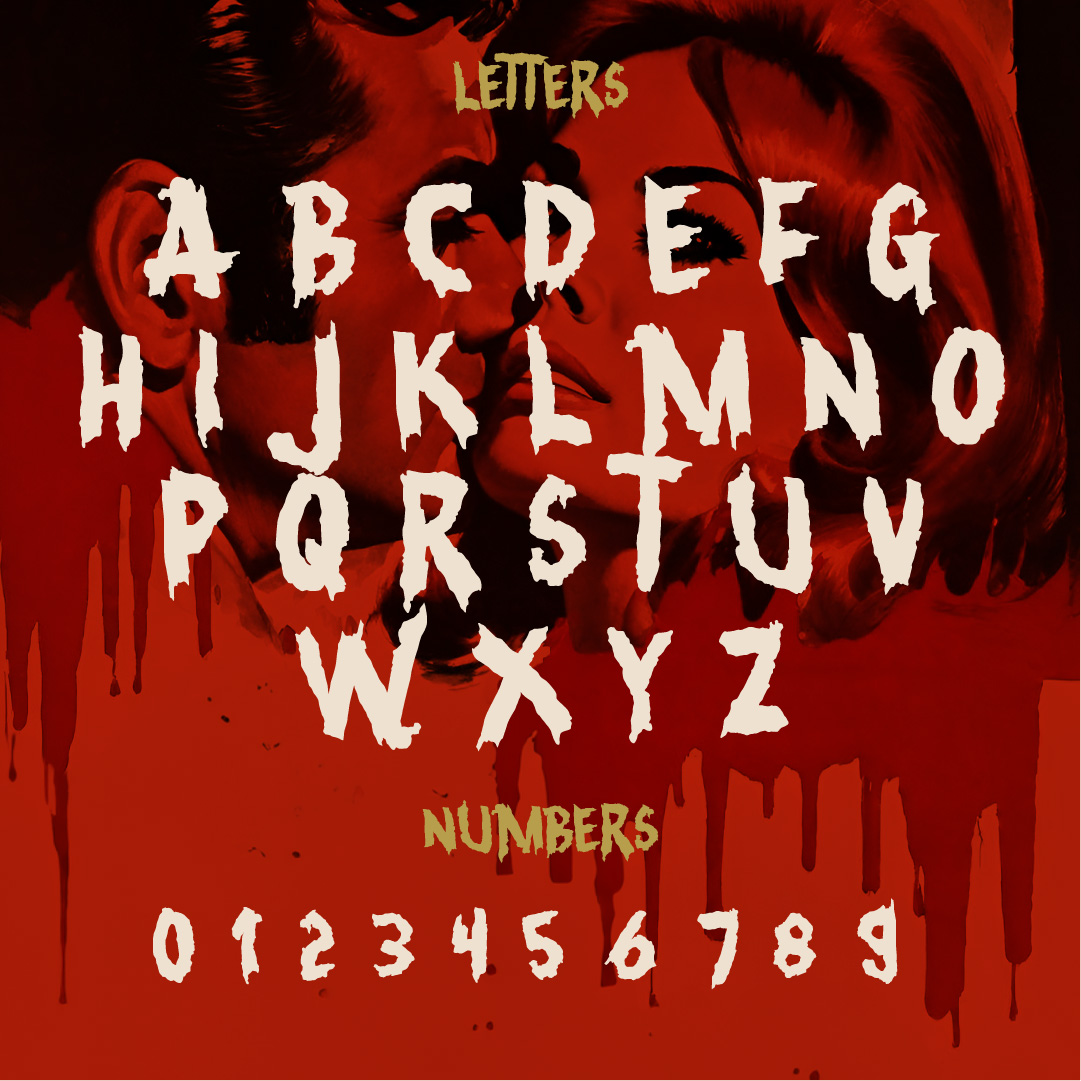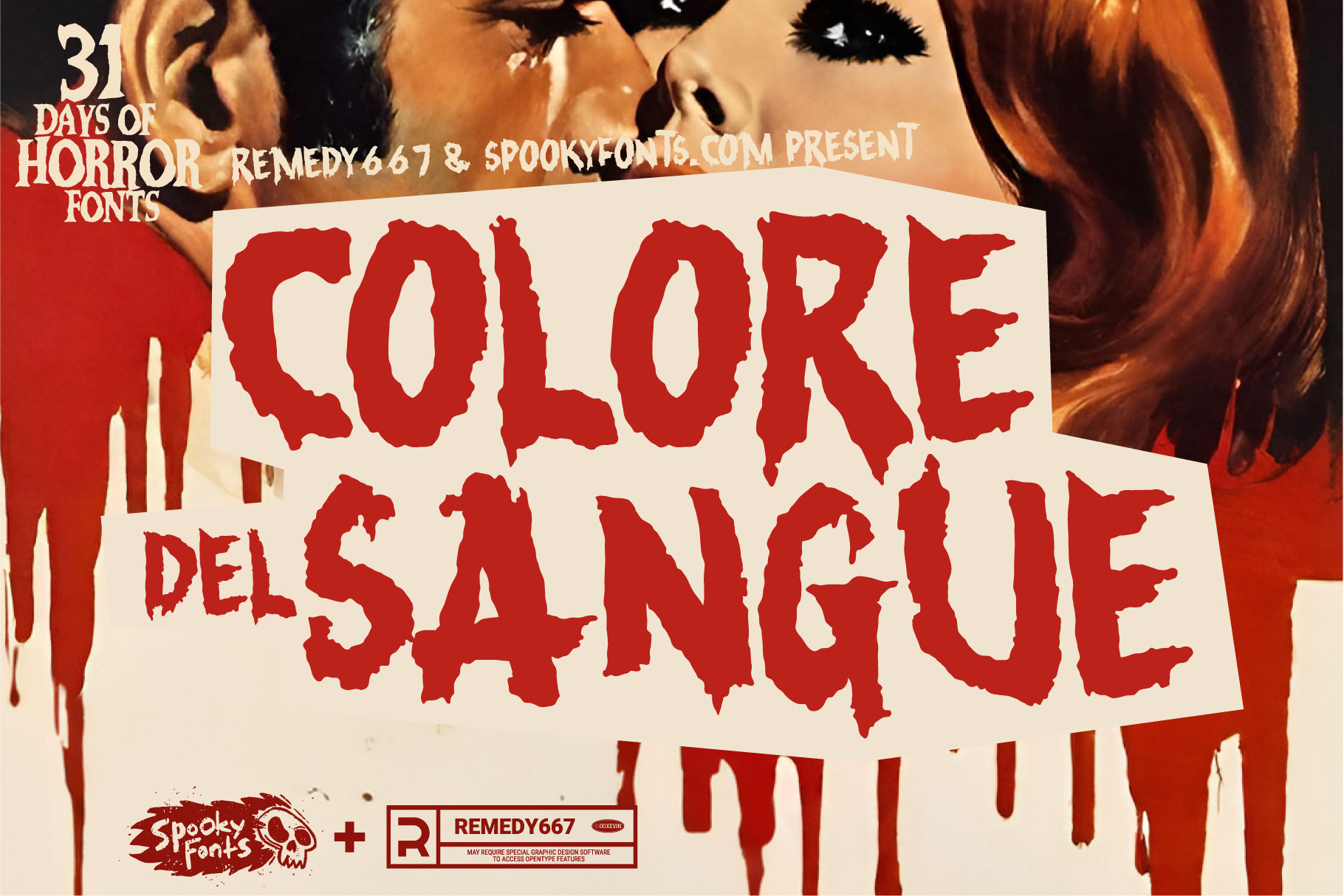
Colore del Sangue
A Giallo style Italian Horror font tht oozes macabre elegance a vintage horror essence.
Introducing Colore del Sangue, the spine-chilling Giallo Italian Horror typeface that will send shivers down your graphic design projects! This blood-red font oozes with macabre elegance and uncanny sophistication, capturing the essence of vintage horror movies and gory crime thrillers. With every stroke of its twisted letterforms, Colore del Sangue unleashes an atmosphere of suspense and dread that will leave your audience trembling in fear.
Dive into a world where darkness reigns supreme as this eerie typeface infuses your designs with a haunting allure. Its sharp serifs and jagged edges mimic the flickering shadows on a dimly lit street corner at midnight. Each character drips with foreboding intensity, like fresh blood dripping from a sacrificial altar. Whether you’re designing movie posters for spine-tingling films or crafting bone-chilling book covers, Colore del Sangue will captivate audiences with its sinister charm.
Not only does Colore del Sangue offer nightmarish aesthetics, but it also provides practical benefits for your design projects. Its highly legible characters ensure readability even in low-light environments or when printed at smaller sizes – perfect for giving that extra touch of terror to chilling flyers or mysterious